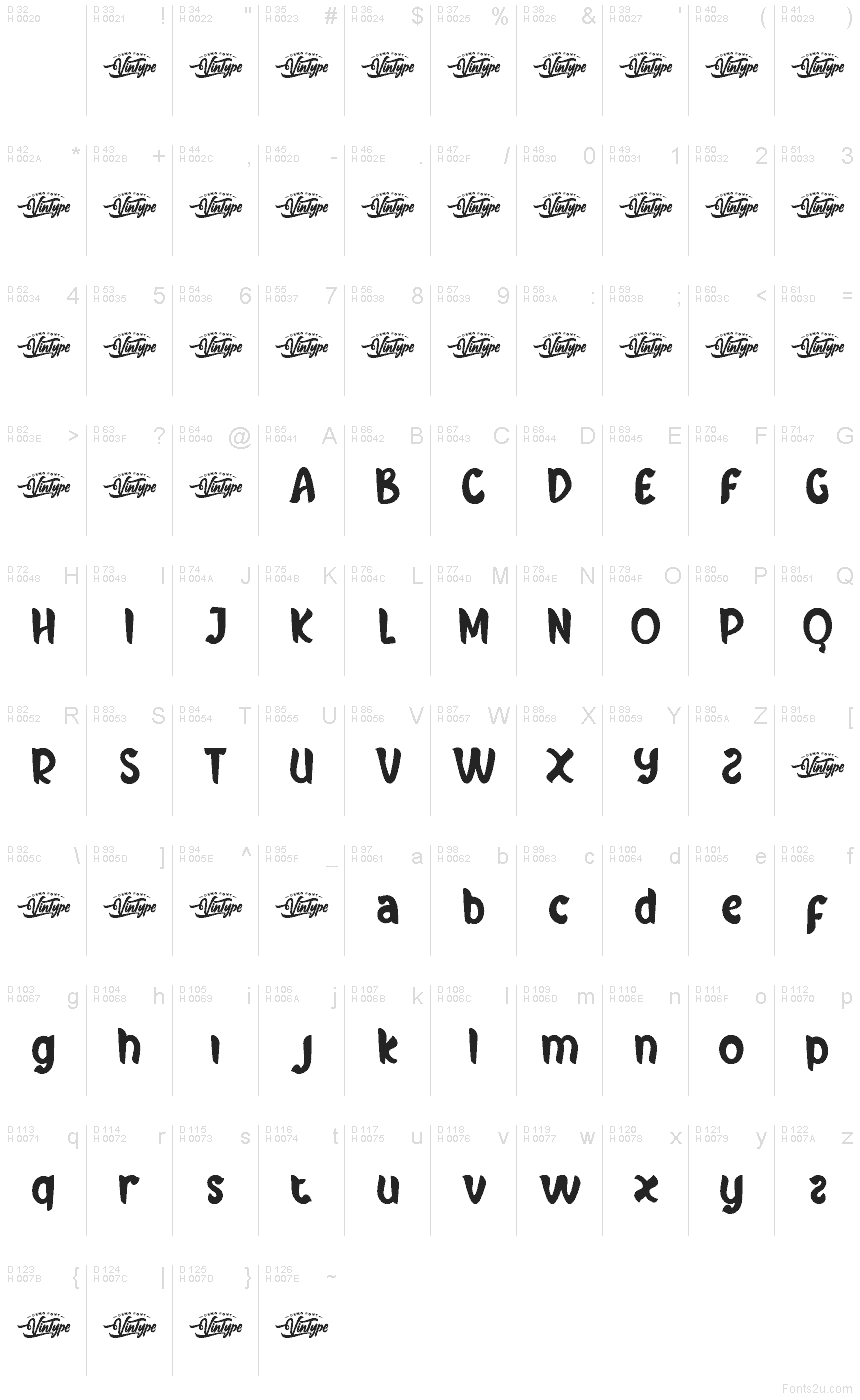
AvocadoMilkDemo
Avocado Milk font by VinType is a free decorative display typeface that looks like it’s been brushed on with thick, inky strokes. The rounded, uneven shapes feel soft and squishy, like cartoon bubbles or hand-cut paper letters, while the tall forms keep every word easy to read at a glance. It’s bold and friendly without getting chaotic, giving your titles an instant hit of playful energy.
Using Avocado Milk, your graphics immediately feel fun, cozy, and a little quirky, so it shines on kids’ products, snack packaging, café menus, social media posts, YouTube thumbnails, stickers, and craft printables. This free font loves big sizes, where its blobby curves can breathe; pair it with a clean sans serif for body copy to keep layouts balanced and legible.